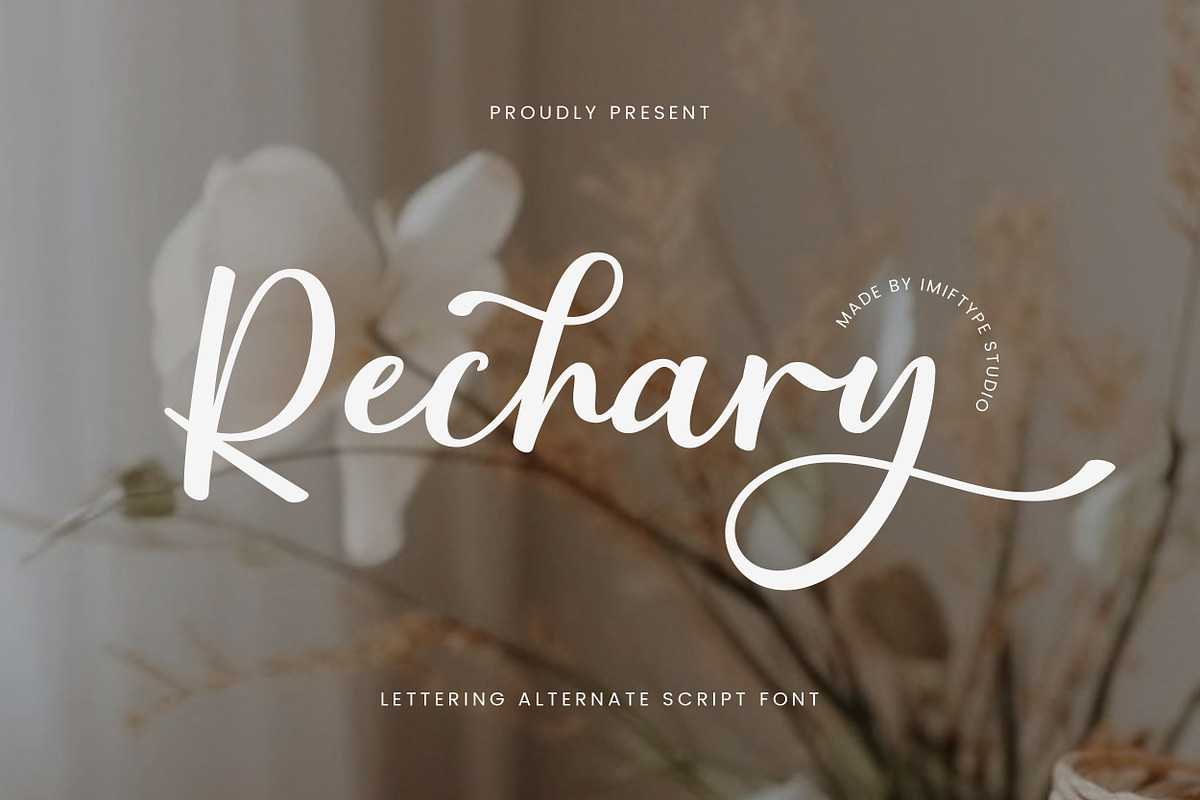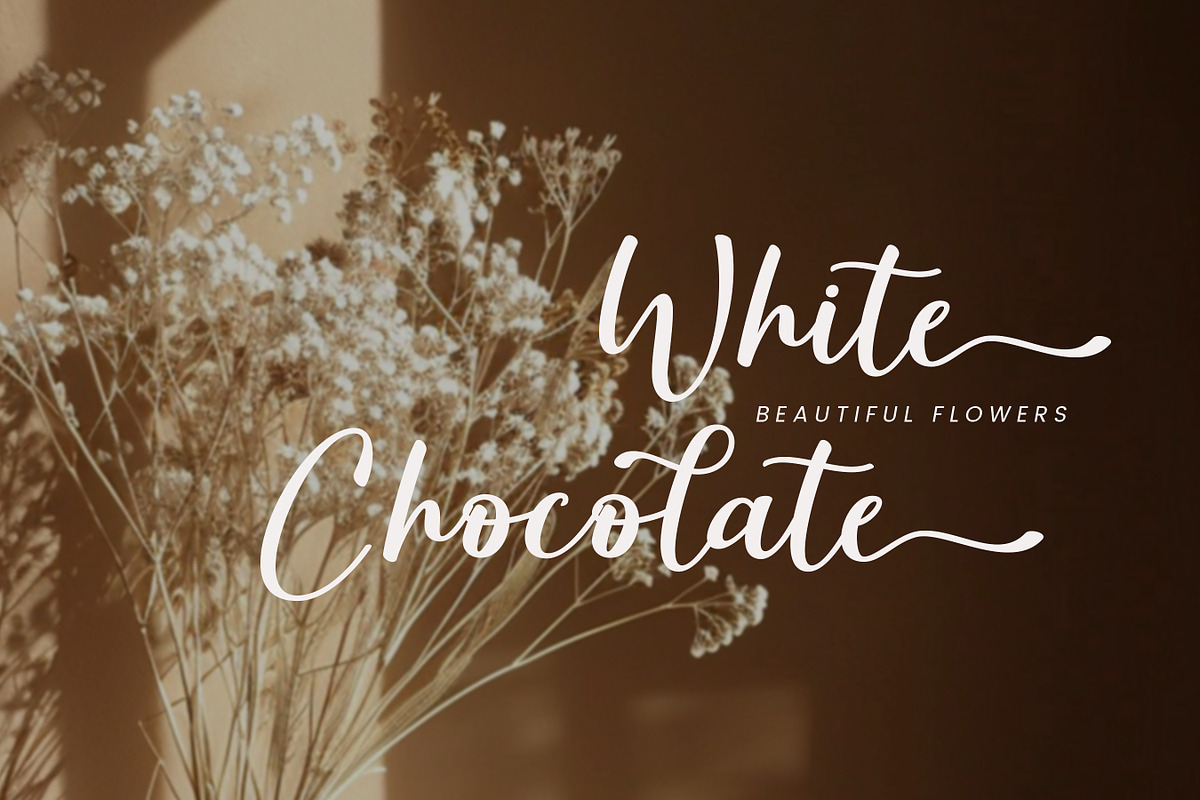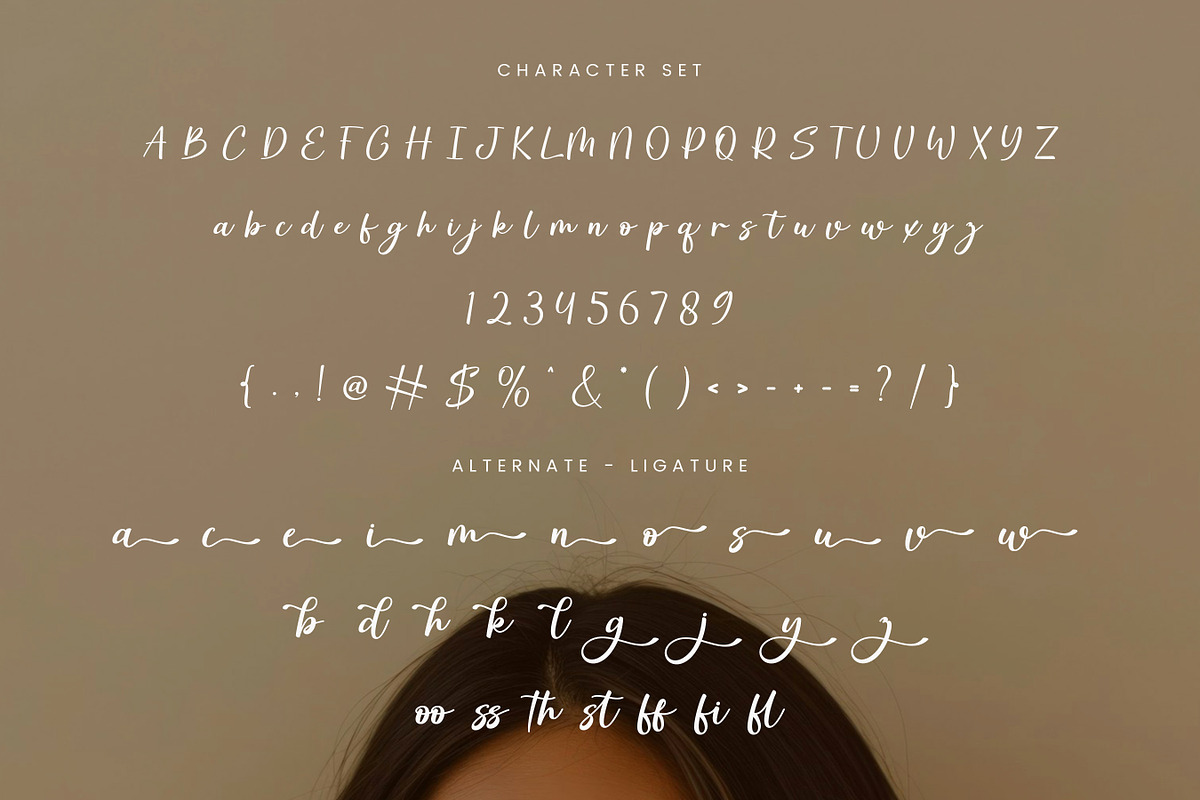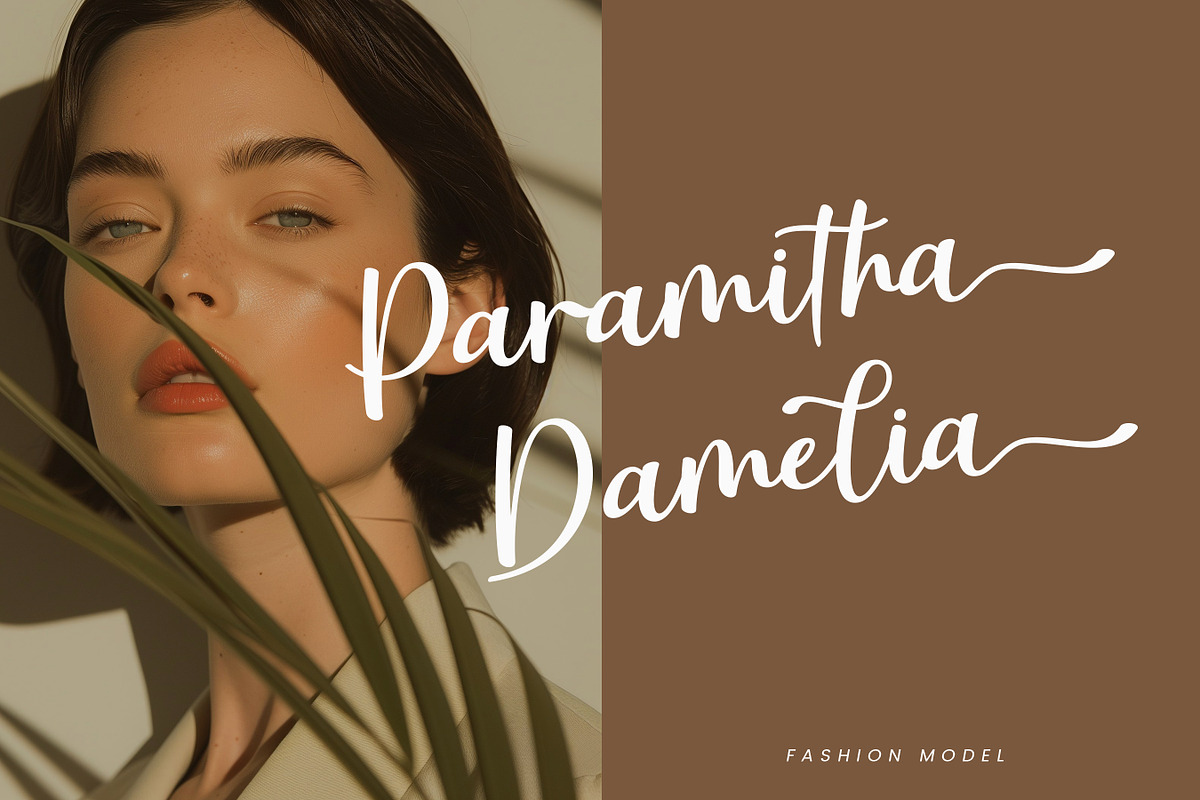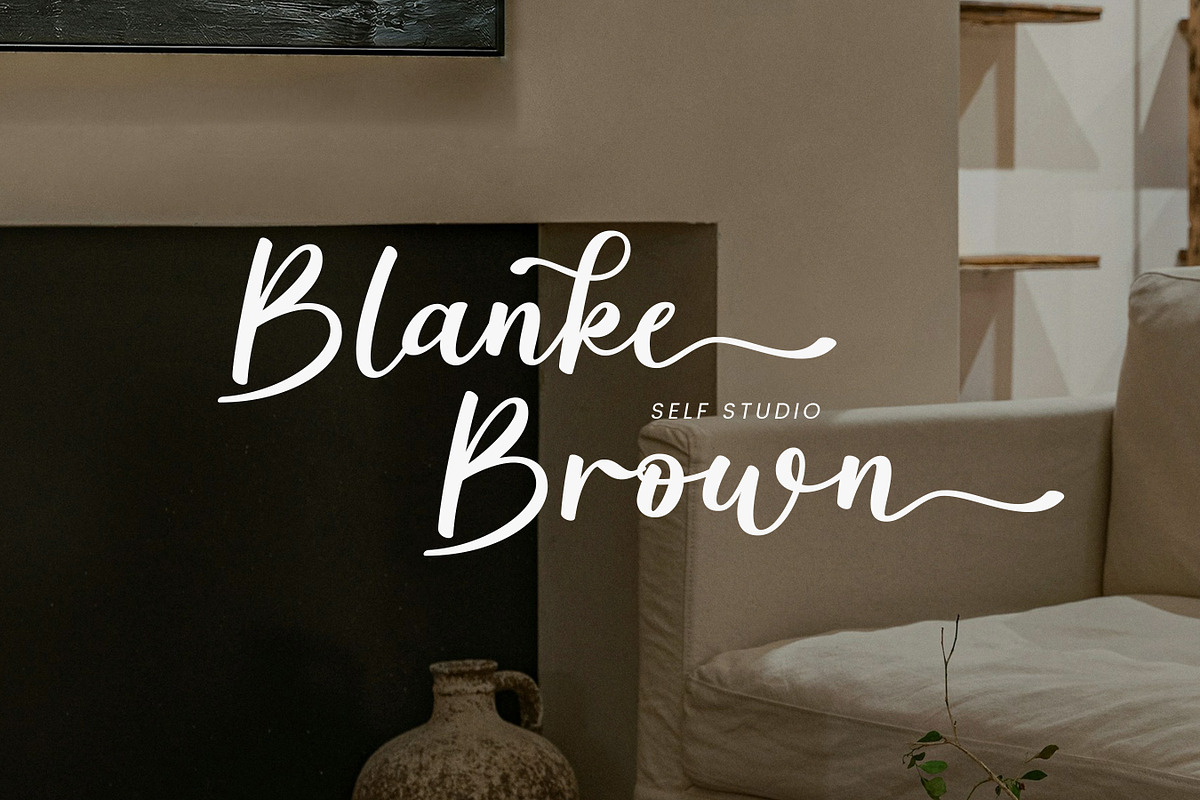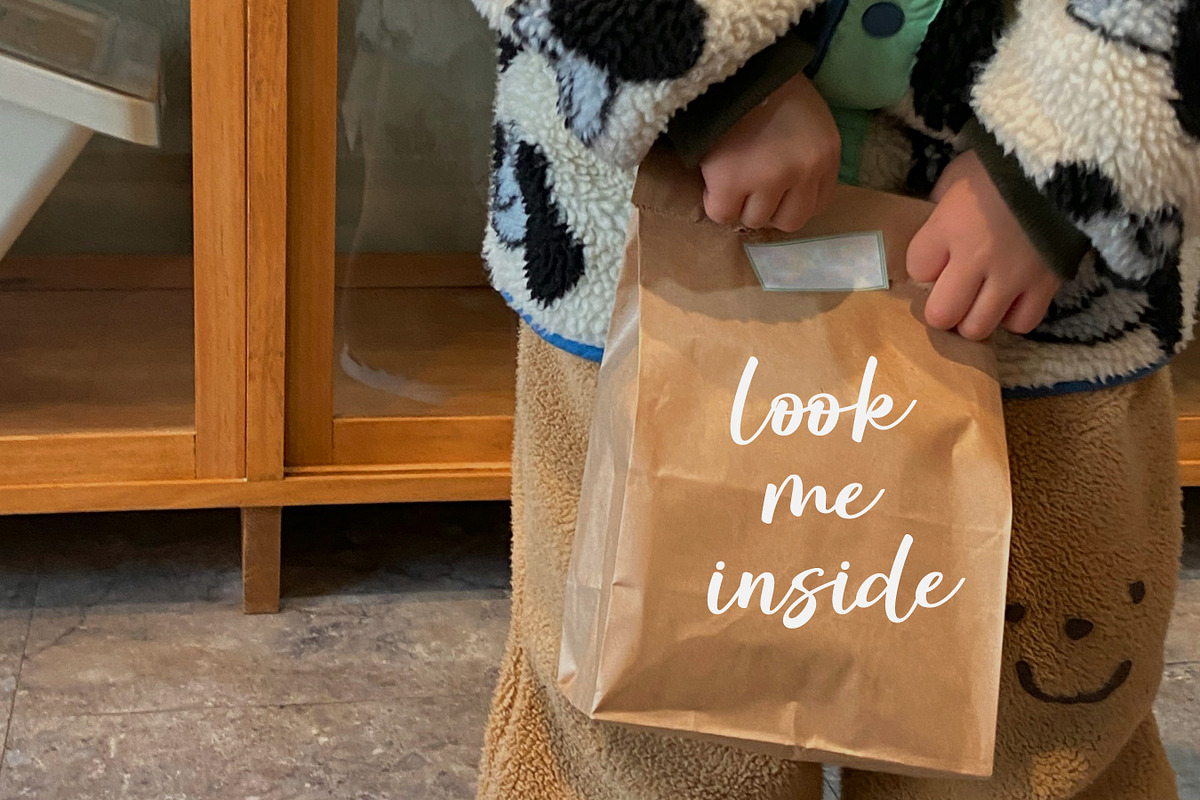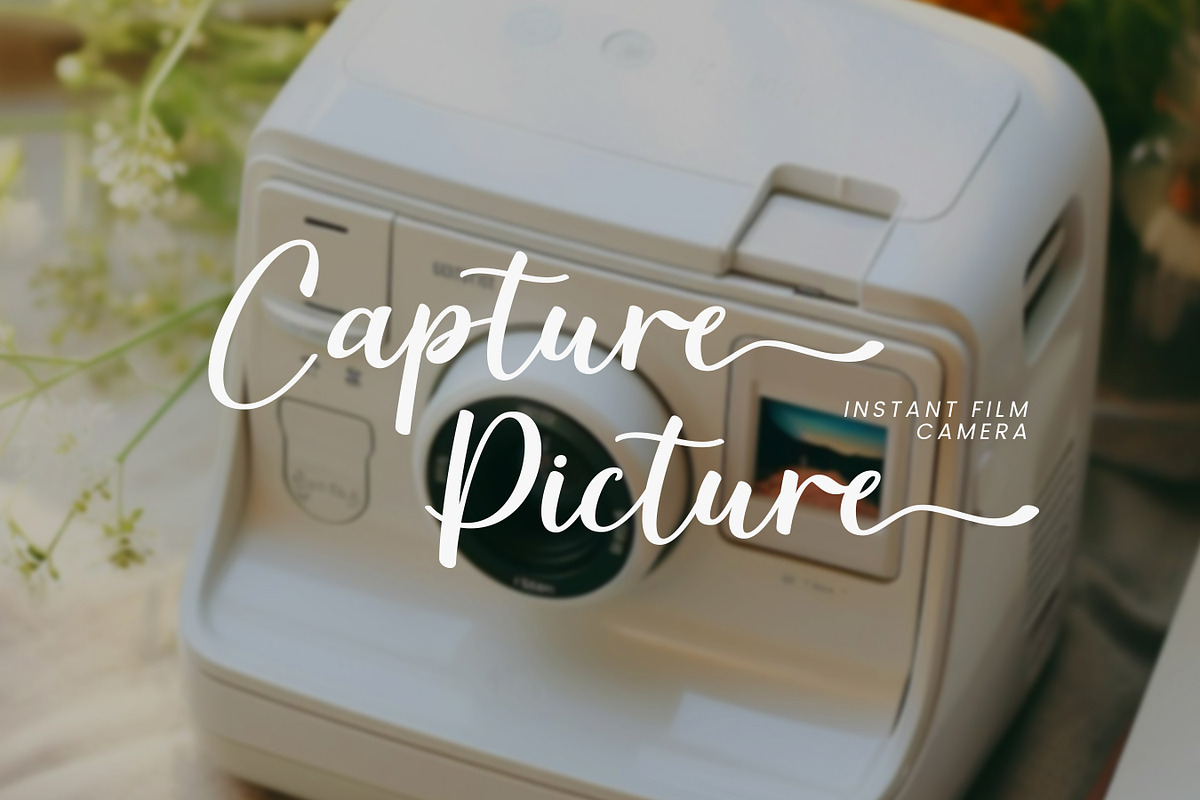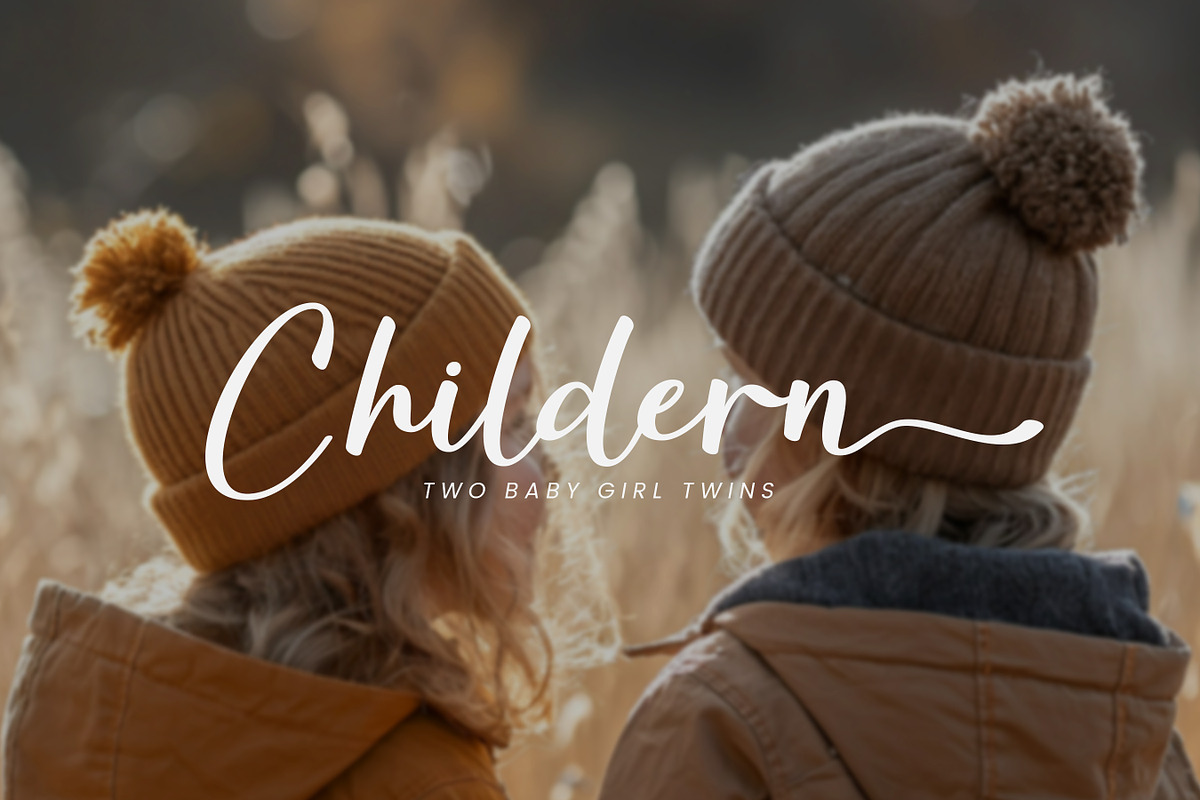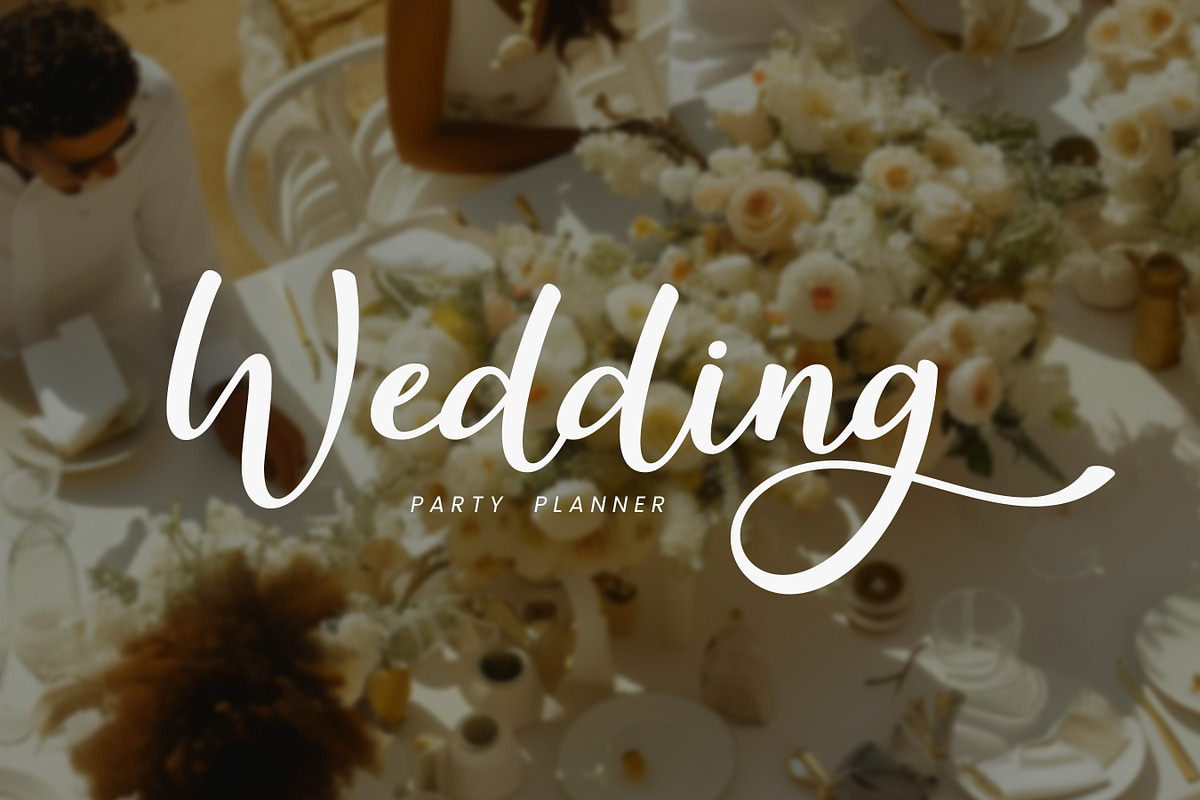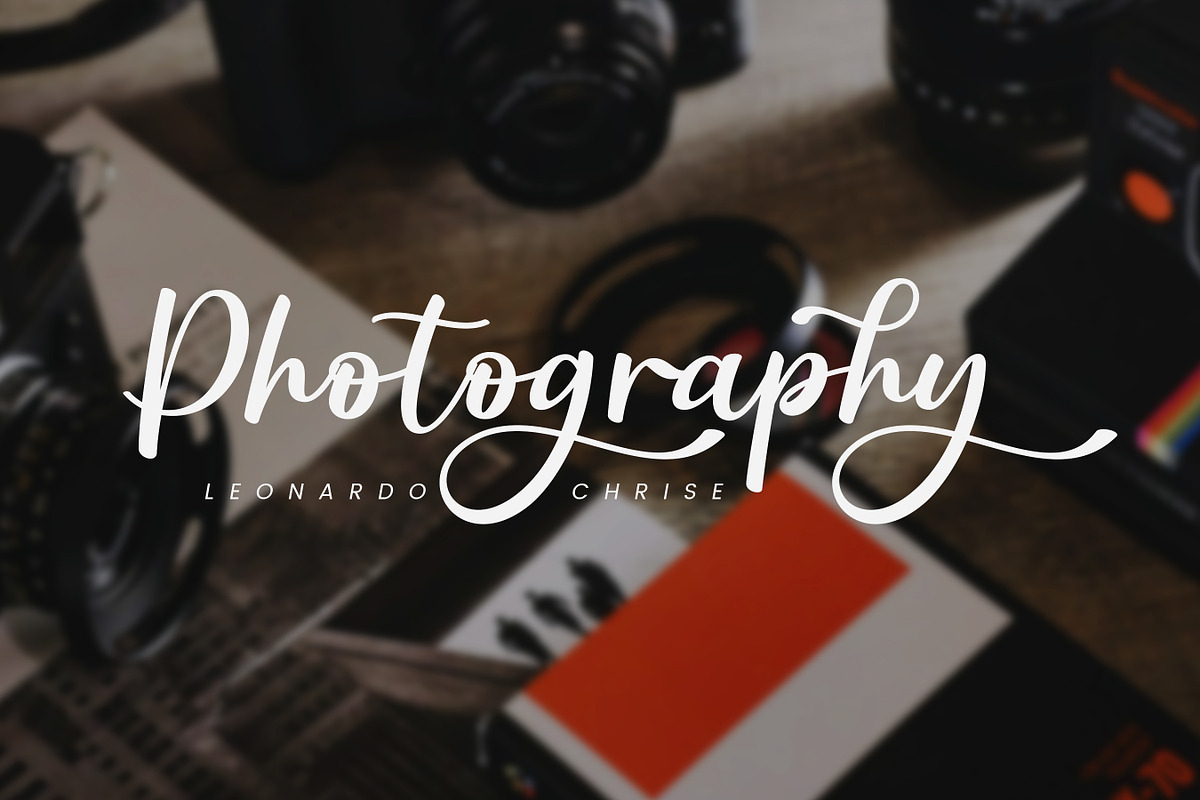
Rechary – Lettering Alternate Script
Rechary is a lettering alternate script font crafted to deliver a soft, elegant, and expressive handwritten style. Designed with smooth curves, flowing strokes, and beautiful alternates, Rechary allows you to create natural and stylish typography with a personal touch.
This font is perfect for logos, branding, wedding invitations, social media graphics, quotes, packaging, fashion designs, and editorial layouts. The alternates give you flexibility to create unique lettering compositions, making every design feel custom and refined.
Rechary blends modern elegance with a warm handwritten character, making it suitable for both digital and print projects. Whether you are working on romantic visuals, feminine branding, or minimalist aesthetics, Rechary adds charm, balance, and visual harmony to your designs.
Carefully designed for readability and style, Rechary is an excellent choice for designers who want a versatile script font with a graceful and timeless feel.